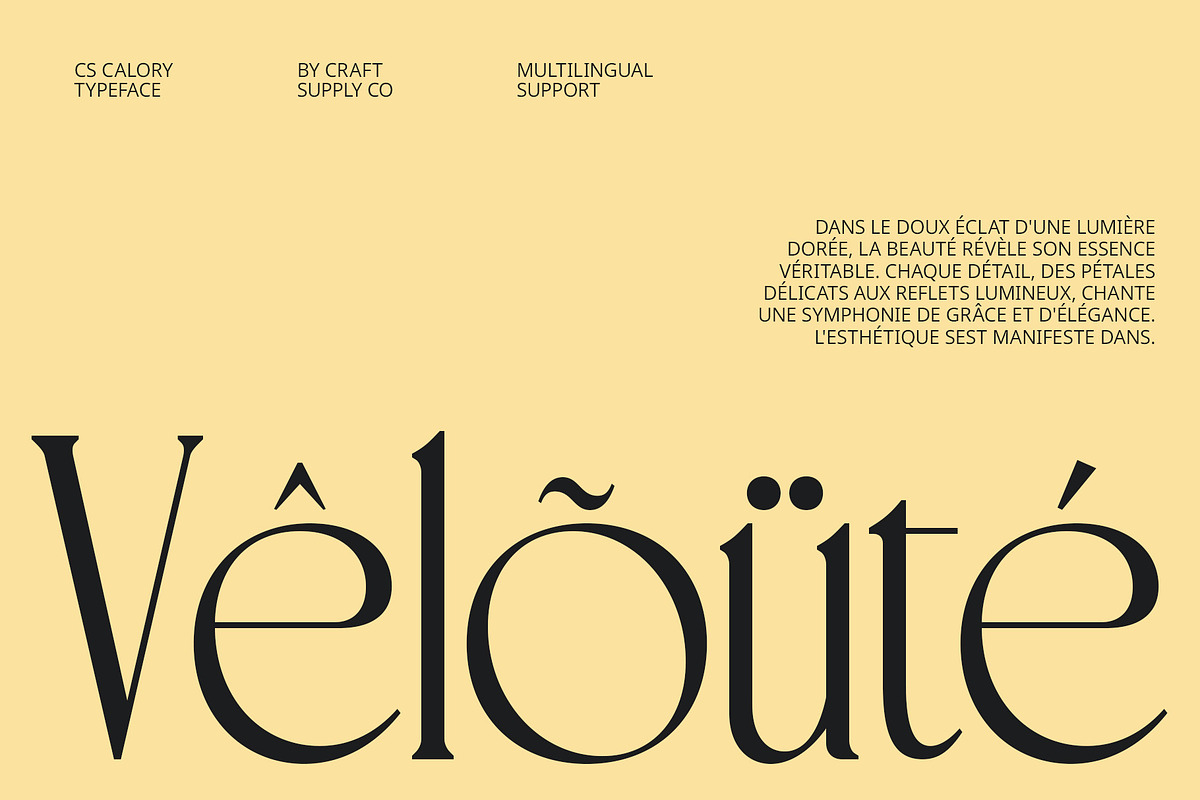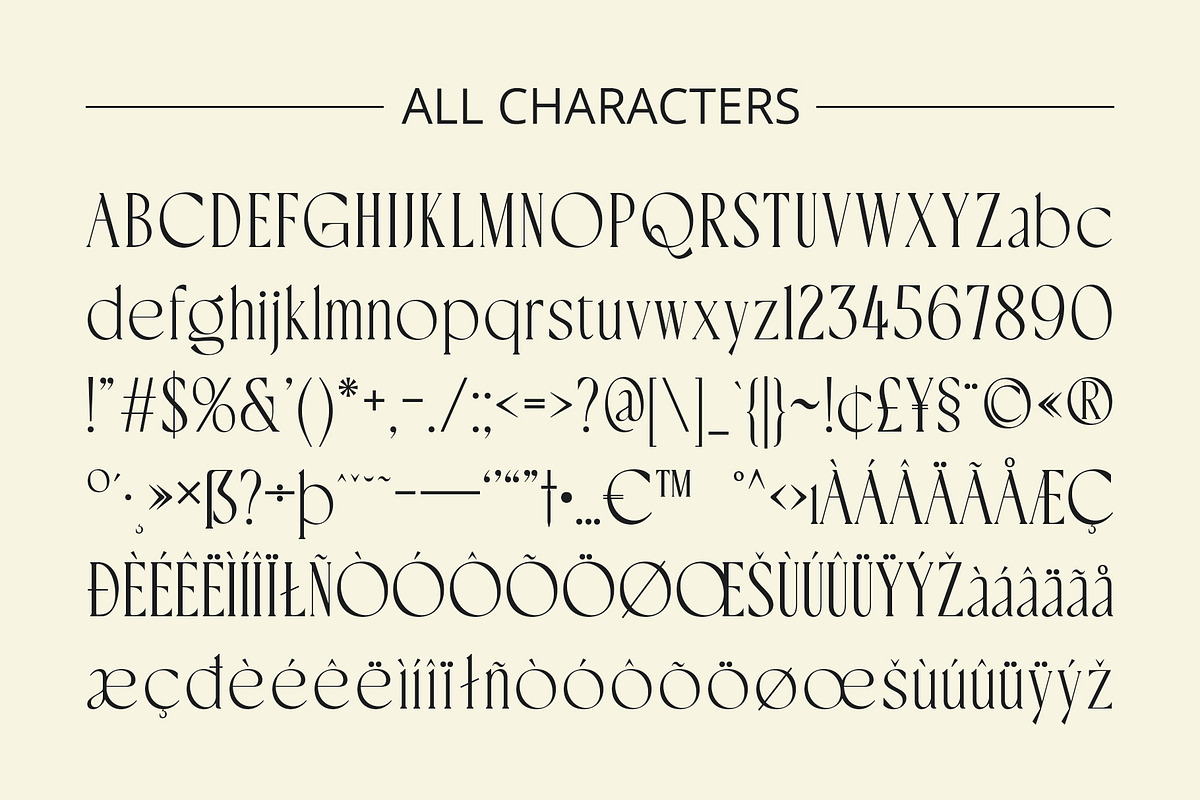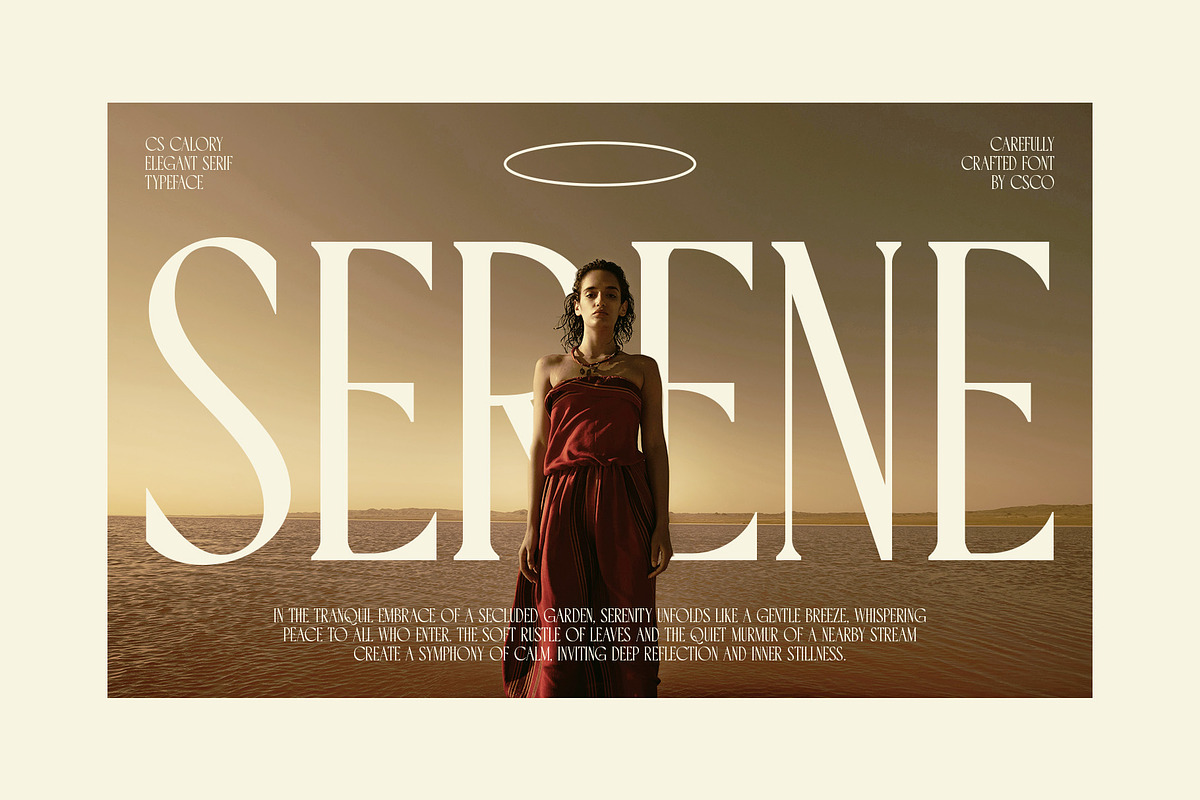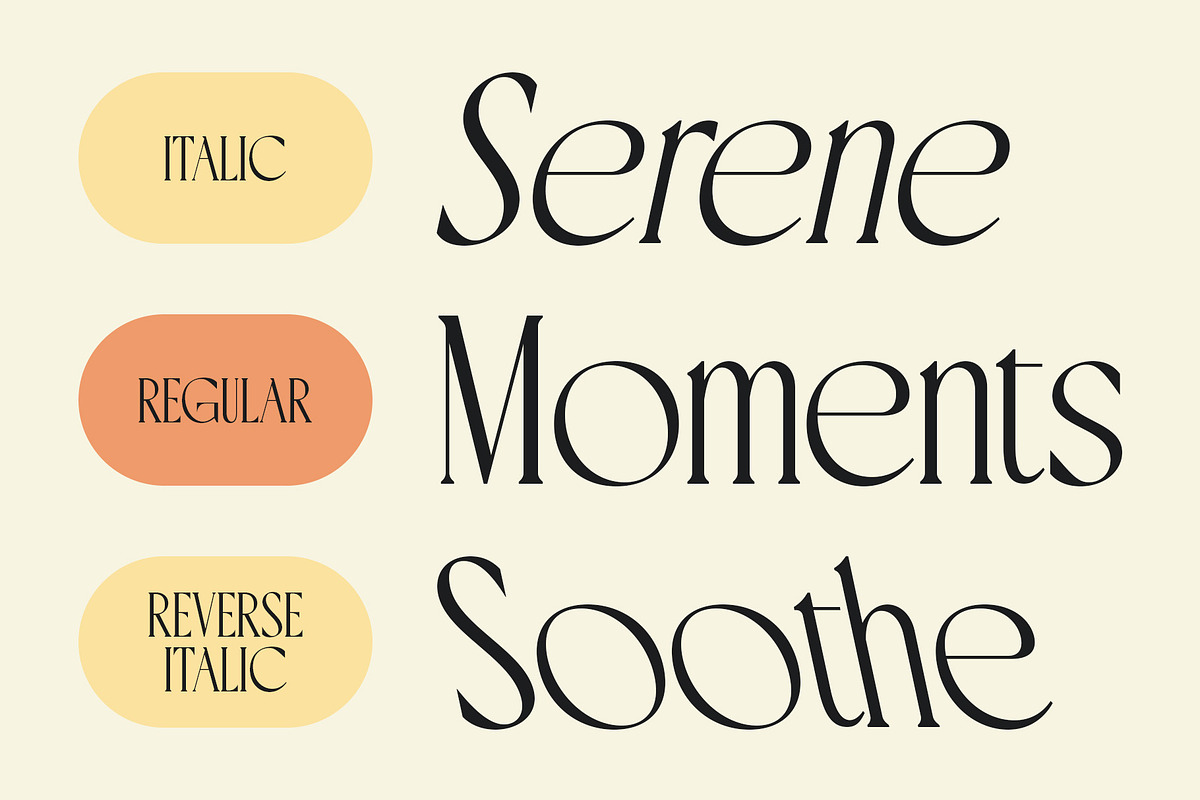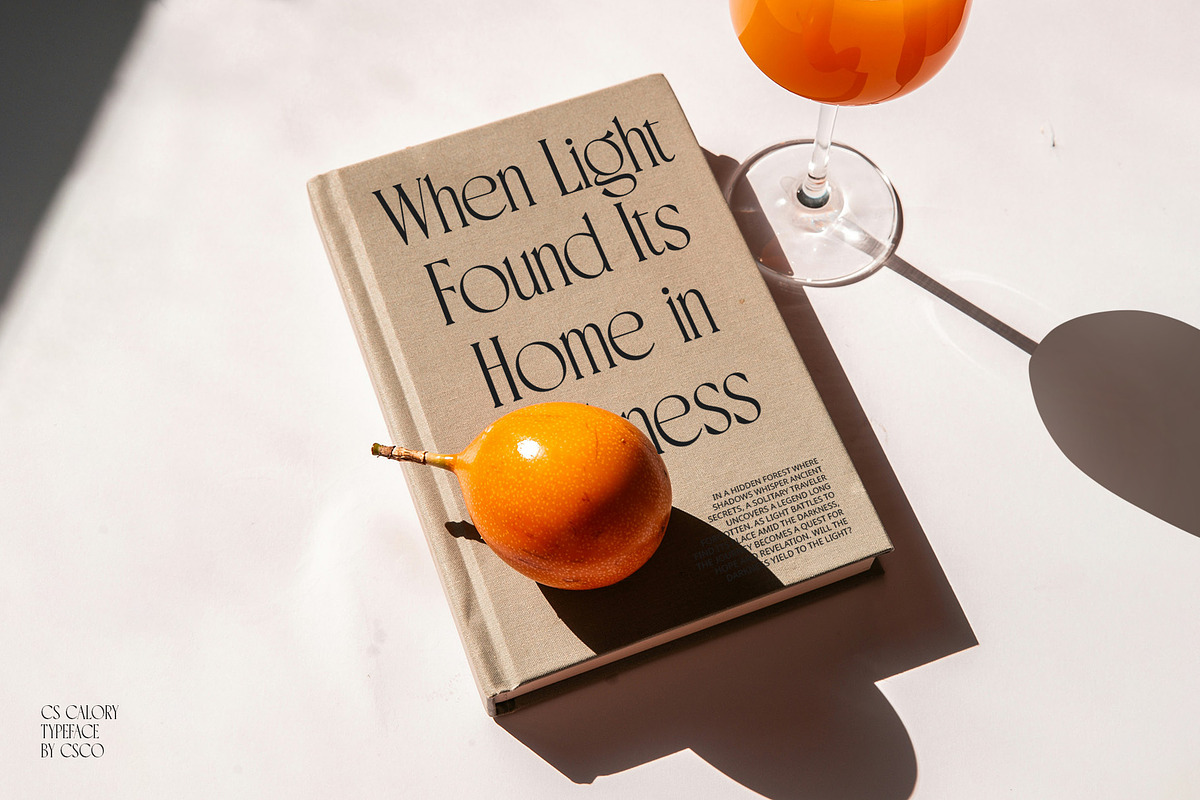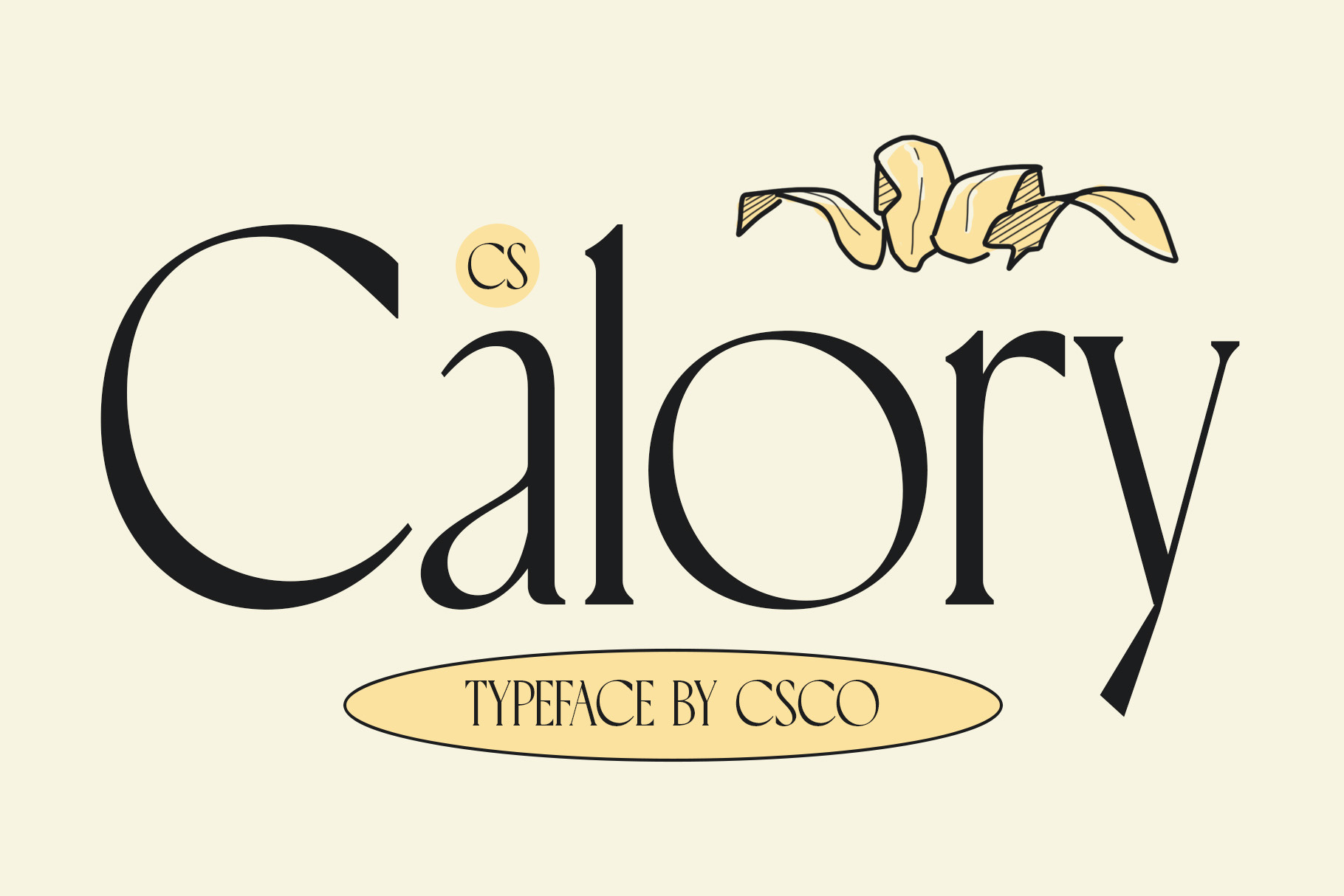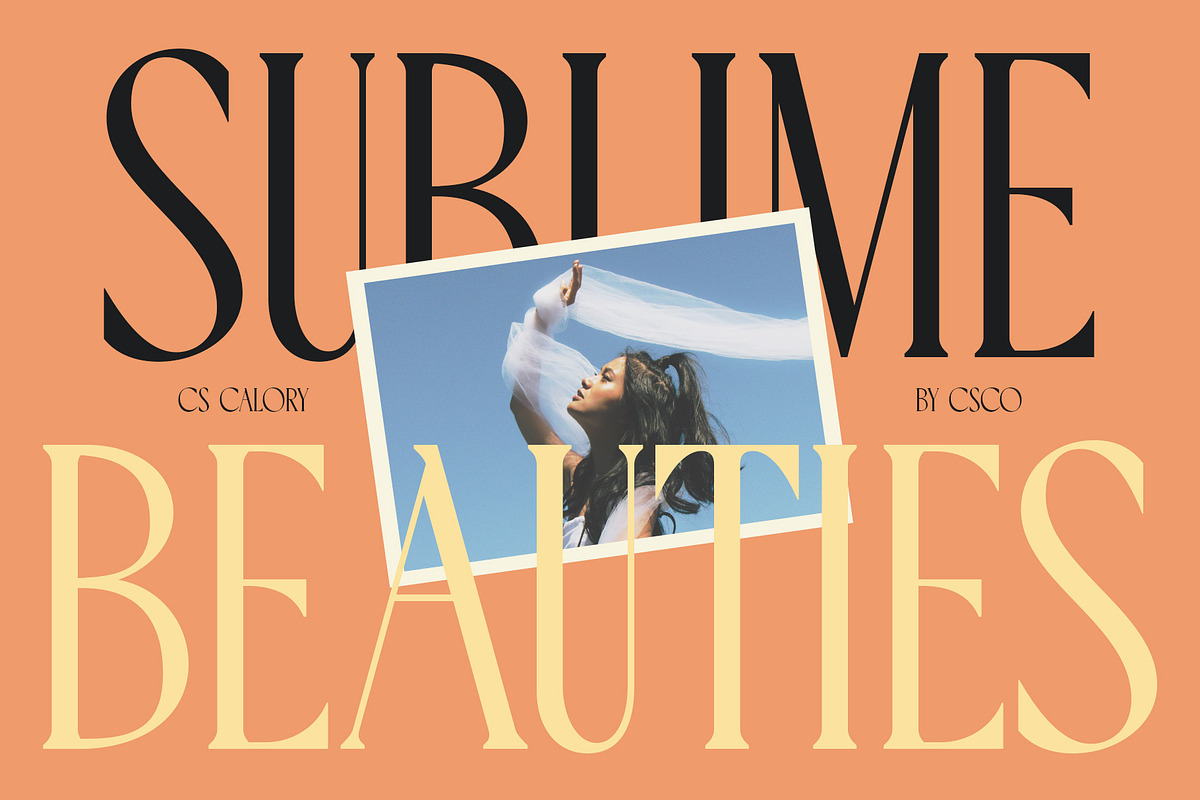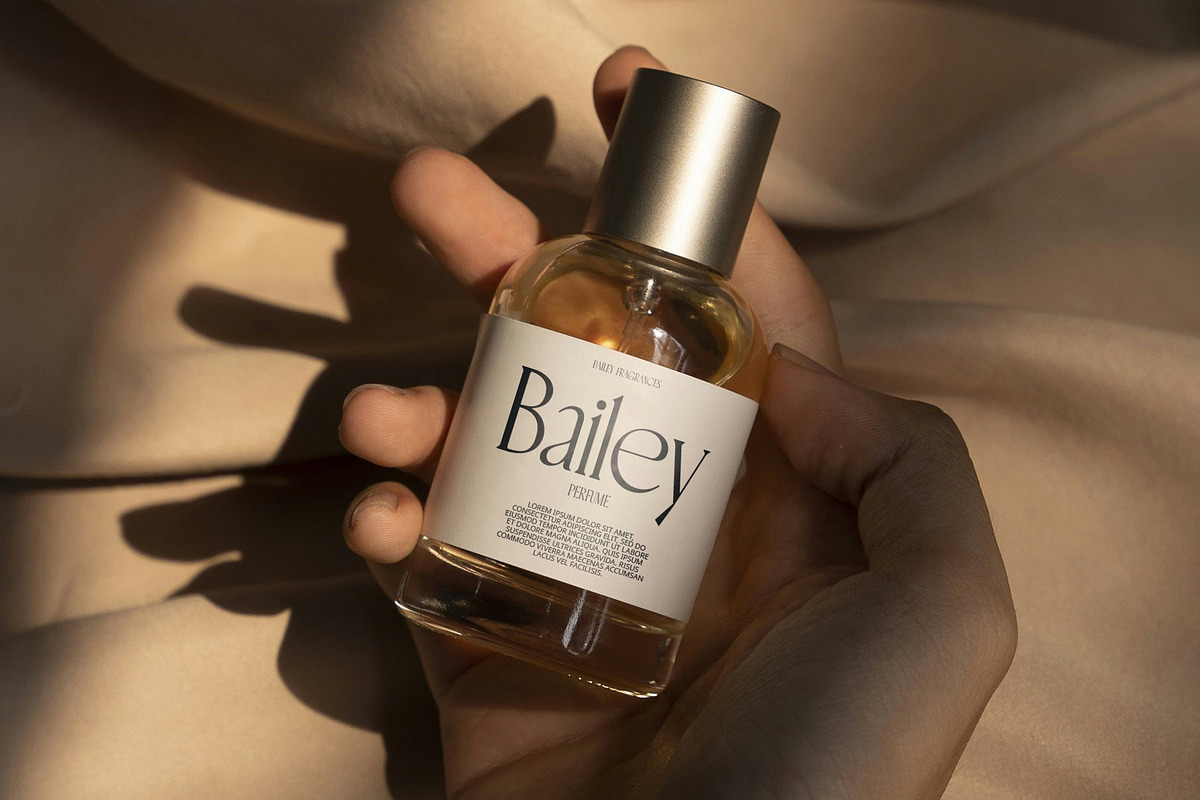
CS Calory – Elegant Font
CS Calory – Elegant Serif Font
Sophisticated and Structured Design CS Calory is a modern serif font with a condensed shape that radiates elegance and structure. Its slim, compressed design offers a sophisticated look while efficiently utilizing space, making it ideal for projects where both style and space efficiency are crucial. The smooth serif lines and meticulously ordered proportions contribute to the font’s refined and professional appearance, enhancing its overall elegance.
Classy and Professional Appeal The refined design of CS Calory provides a touch of class to any project. Its elegant appearance is perfect for formal and professional contexts, such as article headings, formal invitations, and corporate branding. The condensed shape ensures that the font remains both stylish and practical, allowing for a clean, organized layout that retains readability.
Versatile for Diverse Applications CS Calory is versatile and well-suited for a variety of design applications. Whether used in editorial publications, logo design, or marketing materials, this font maintains a sophisticated and polished aesthetic. Its elegant style makes it a valuable choice for designs that aim to convey a high level of professionalism and class, offering a balance of space efficiency and visual appeal.
- CS Calory Regular
- CS Calory Italic
- CS Calory Reverse Italic